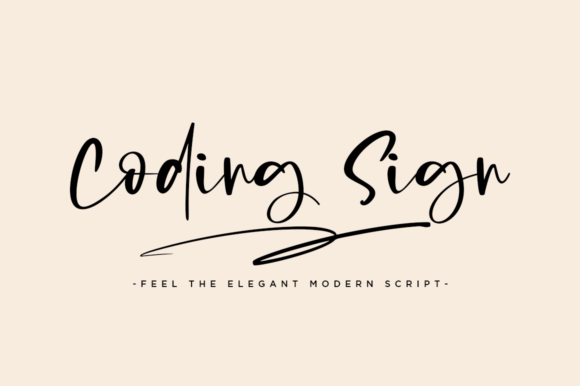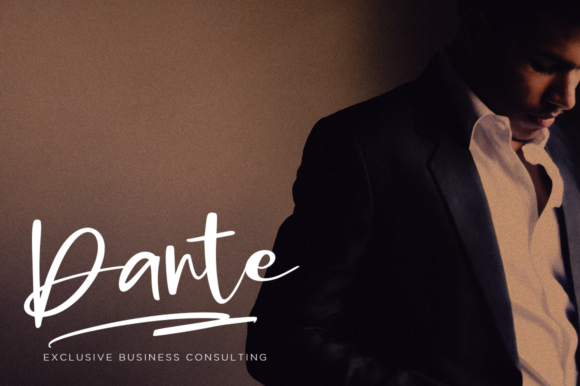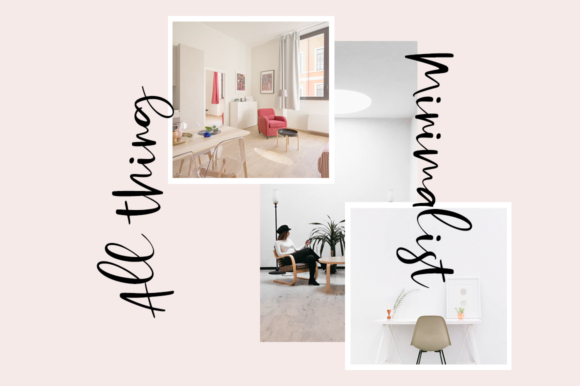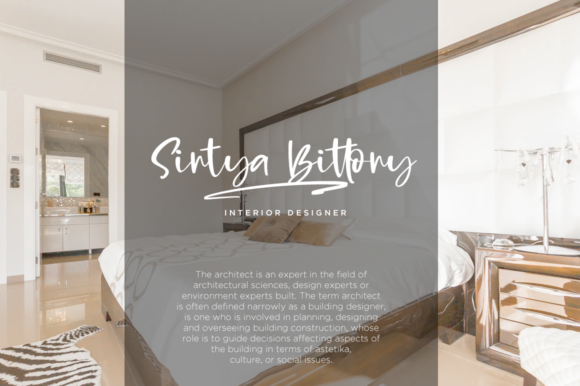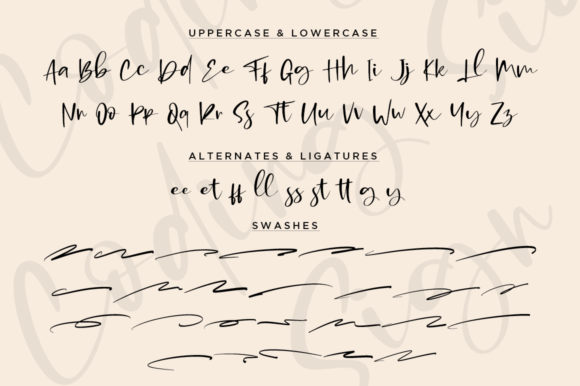
Coding Sign Font
About Coding Sign Font
Coding Sign is a flowing handwritten font, described by an elegant touch, perfect for your favorite projects. Fall in love with its incredibly distinct and timeless style and use it to create spectacular designs!